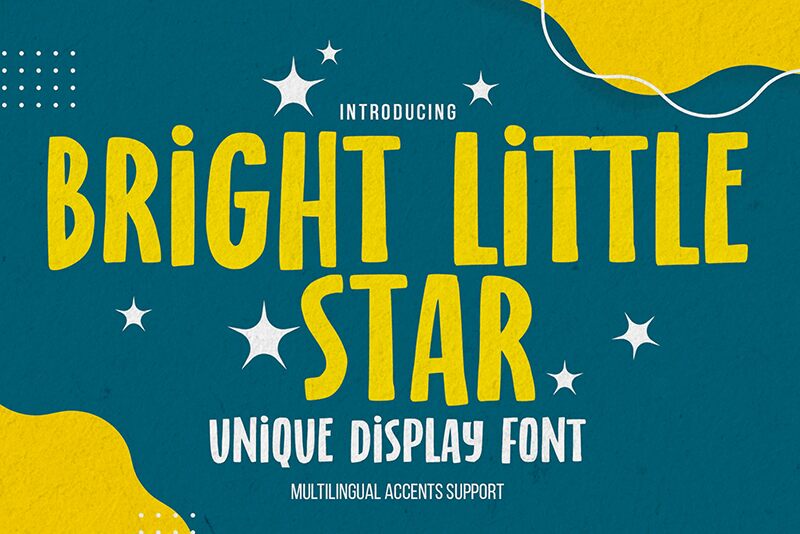
bright little star Regular
Bright Little Star bursts onto the creative scene with its unique cartoon charm and bold, condensed presence. Crafted by Gassstype, this display font encapsulates a modern style with a twist of dramatic movement, as if penned in a swift, joyous stroke. Its playful contours and whimsical lines open up a world of design possibilities that can transform the mundane into something delightful.
Ideal for an array of applications, Bright Little Star shines in labels, posters, and branding endeavors where a touch of authenticity and fun is desired. It's not merely a typeface; it's an invitation to infuse your projects with personality-be it greeting cards that smile back at you or packaging that dances off the shelf.
With its cool undertones and natural look, Bright Little Star promises to sprinkle a little magic on everything from websites to scrapbooking adventures. This font isn't just about letters on a page-it's about crafting stories that leap out and capture the imagination.